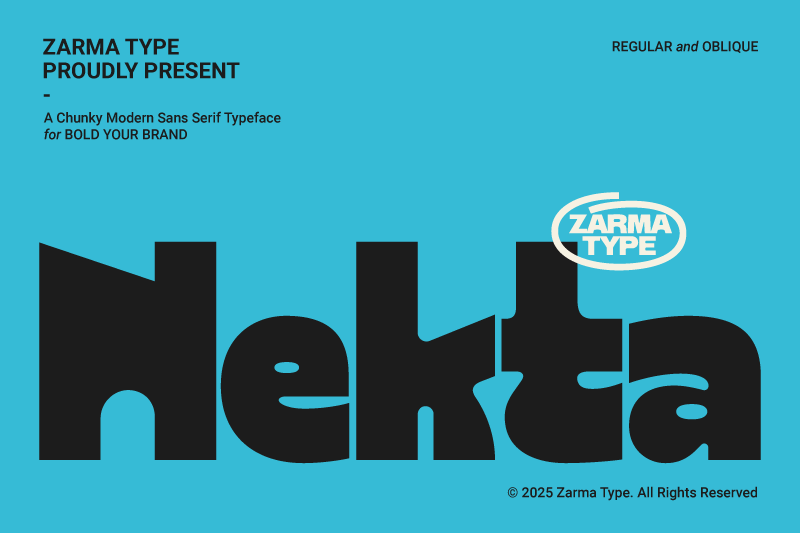
Nekta
Nekta is a modern sans serif font with confident weight, rounded corners, and playful geometry that turns short words into powerful headlines. Generous counters and clean spacing keep it readable on menus, posters, and product cards. When layouts need extra momentum or a quick hint of emphasis, an oblique version is available to add movement without changing families. Built for practical branding, Nekta holds its structure from small labels to giant billboards. The rhythm stays steady, and the voice remains friendly, even in tight settings. Alternate glyphs help you tune word shapes, while multilingual support keeps global projects consistent. And if you want a directional accent, simply lean the text—the oblique cut is available for that purposeful tilt. ======================================================== Please read this carefully before start using or installing the font. By using or installing the font you agree with our terms and condition. This FREE FONT can be used for PERSONAL USE ONLY (NO COMMERCIAL USE ALLOWED), test, evaluate and compare the font with others. FREE FONT cannot be used in finished commercial projects. If you use this font for your business purpose, please PURCHASE the COMMERCIAL LICENSE. Link to purchase full version and commercial : https://zarmatype.com/font/nekta-modern-sans-serif-font/ Please visit our store for more amazing fonts: https://zarmatype.com/ For more detail about licensing please visit https : https://zarmatype.com/license/